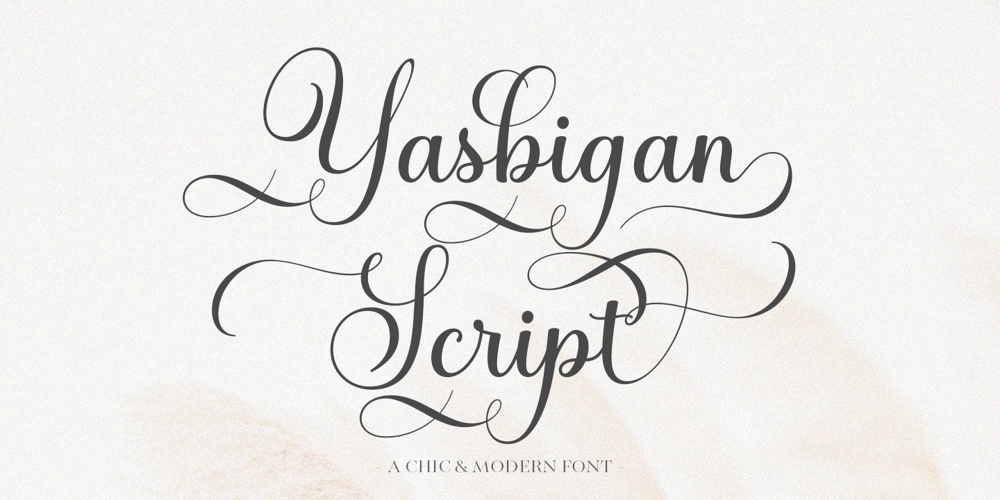
Yasbigan Script
Yasbigan Script font
Yasbigan Script Font Family was designed by Muammar Kadafi and published by Attract Studio. Yasbigan Script contains 1 styles and family package options. Yasbigan Script is this beautiful font for those who need a modern beauty and is perfect for wedding invitations, saving date cards and feminine branding.Yasbigan Script includes a handy OpenType feature that makes the font look more natural that includes a full set of letters with initial strokes and strokes end as well as an alternative set of lowercase letters with beautiful bindings.How to Access Alternate Characters: https://www.youtube.com/watch?v=Go9vacoYmBw https://www.youtube.com/watch?v=XzwjMkbB-wQ https://www.youtube.com/watch?v=x1A_ilsBsGs